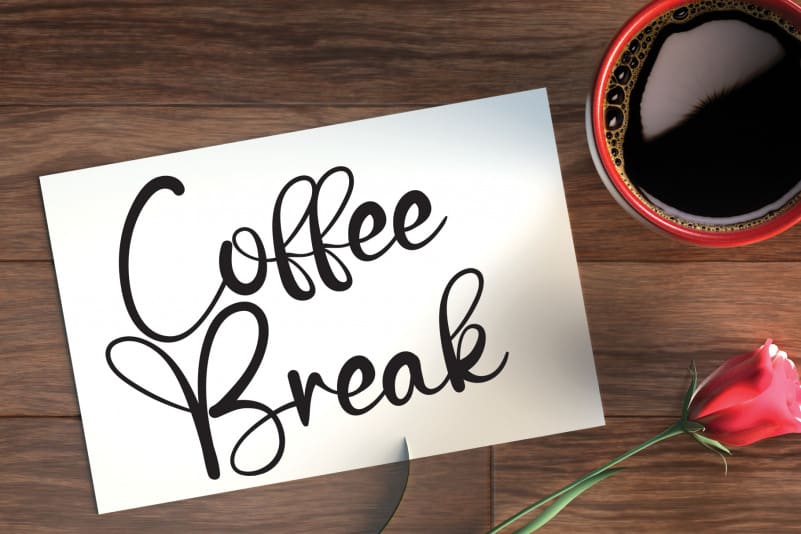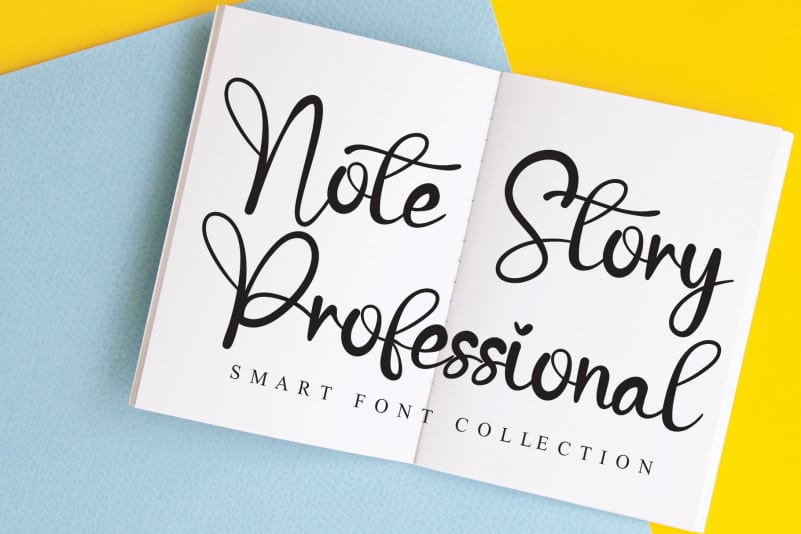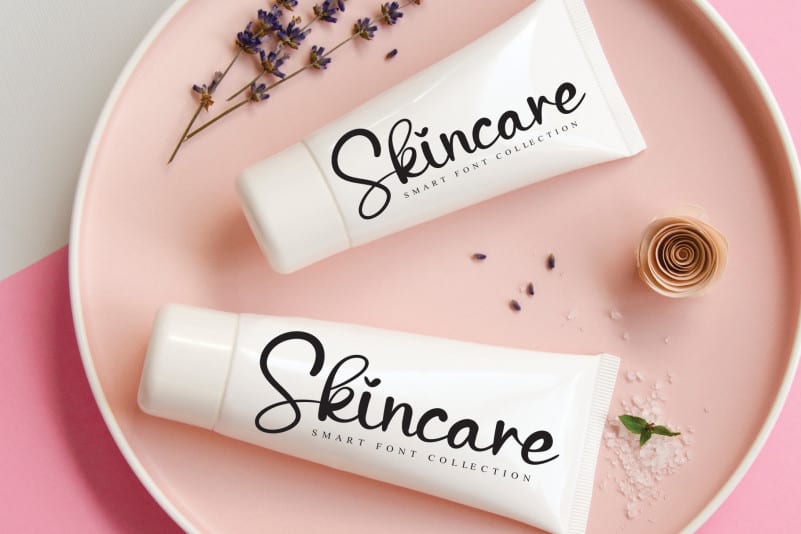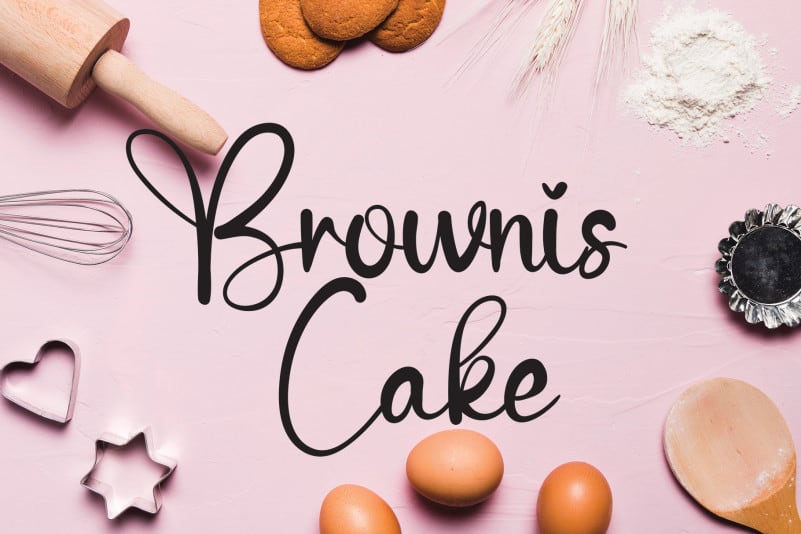
Hello Enjoyment Calligraphy Font
Introducing Hello Enjoyment Calligraphy Font. The latest style letters are perfect for wall displays, wedding invitations, social media post logos, advertisements, product packaging, product designs, labels, photography, watermarks, invitations, stationery, and any project that requires taste handwriting.